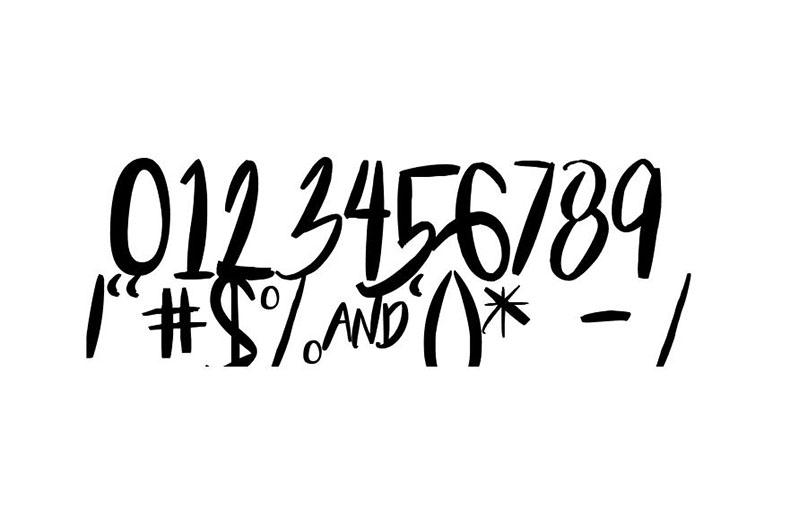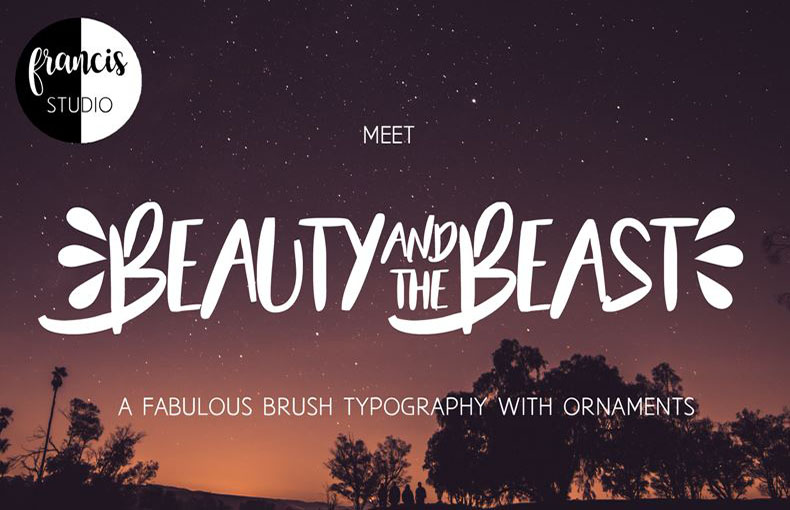
Beauty And The Beast Font is a script brush typeface that comes with graceful and flowing letterforms. It was designed and shared by Francis Studio.
Due to its love and magic style, you can use it for a variety of purposes such as eye-catching headlines, invitations, greeting cards, marketing materials, and branding.
The designer has crafted it with the delicate brushstrokes of a watercolor painting. Moreover, its slightly irregular letterforms can add a personality to your design.
It is ideal for use in flyer design, label design, wall murals, social media posters, headers, banners, postcards, and titling design. It works well for reading font textures, sophisticated text designs, and graphic card designs. For general report design, resume design, and article design, this font is suitable.
What is Beauty And The Beast Font?
Beauty And The Beast Font is a script brush typeface that comes with graceful and flowing letterforms. It was designed and shared by Francis Studio.